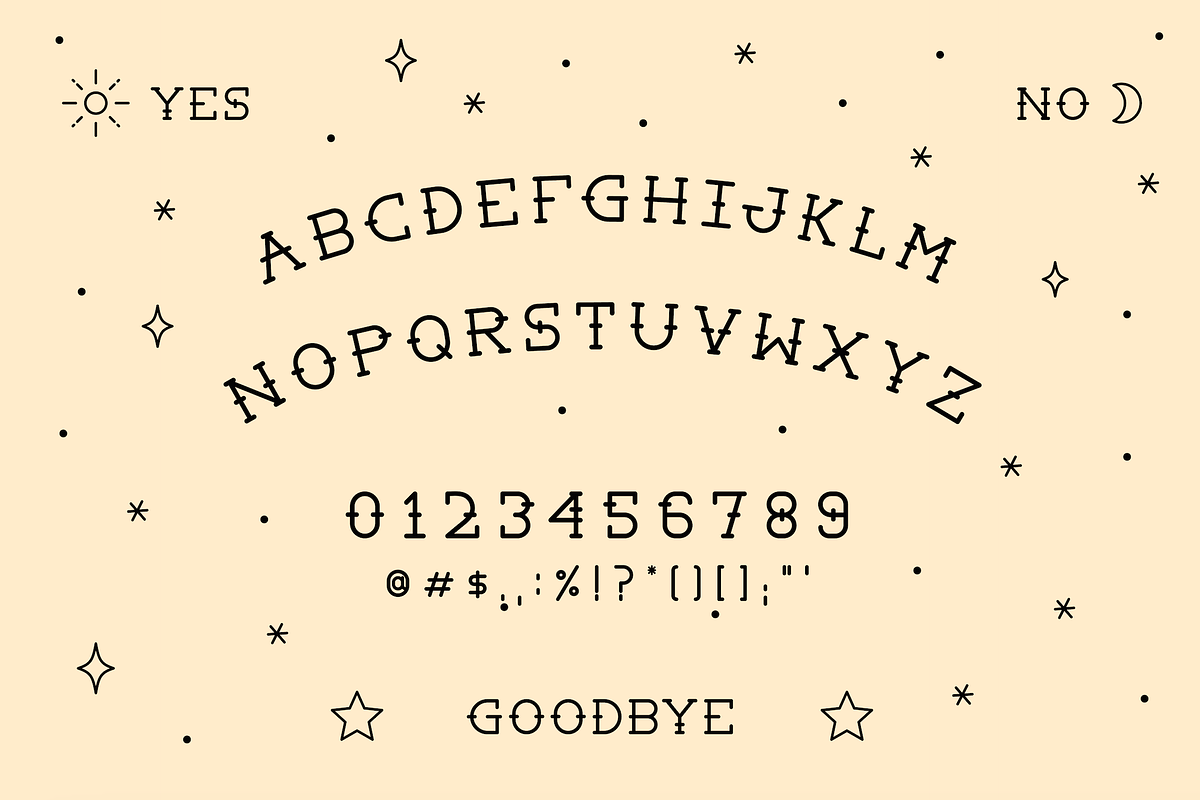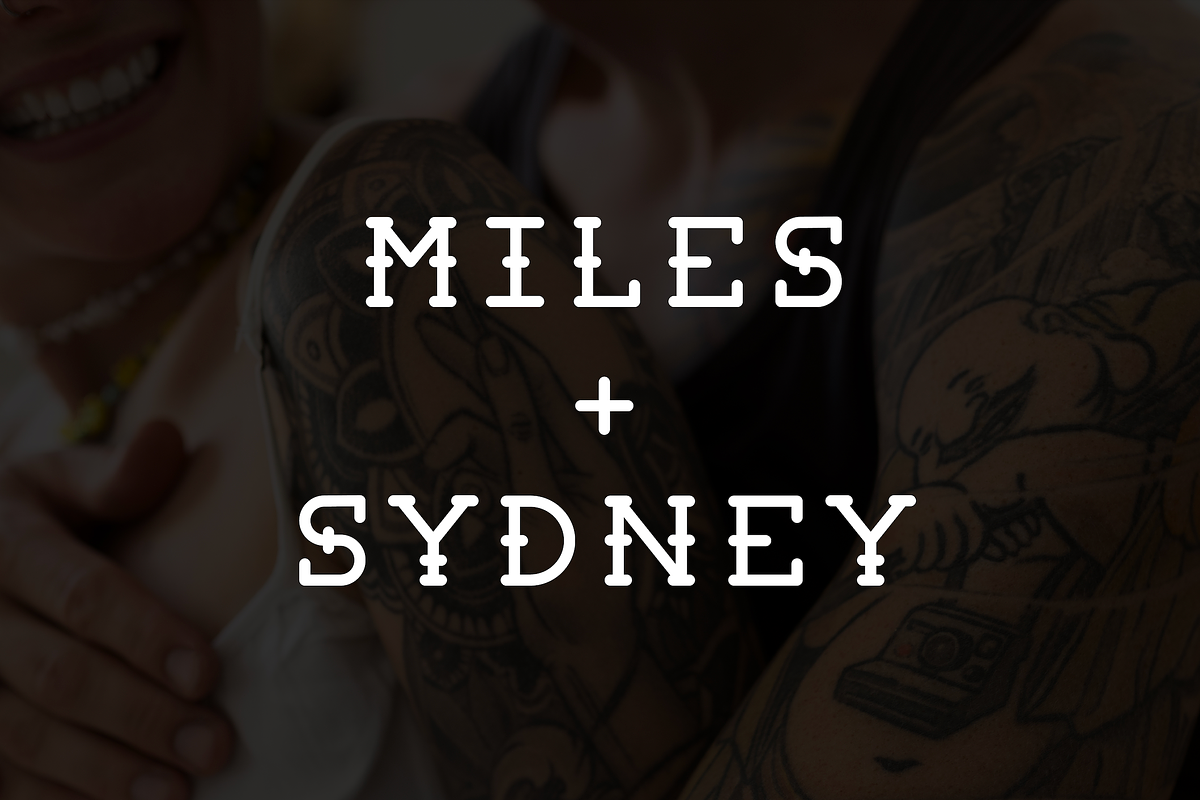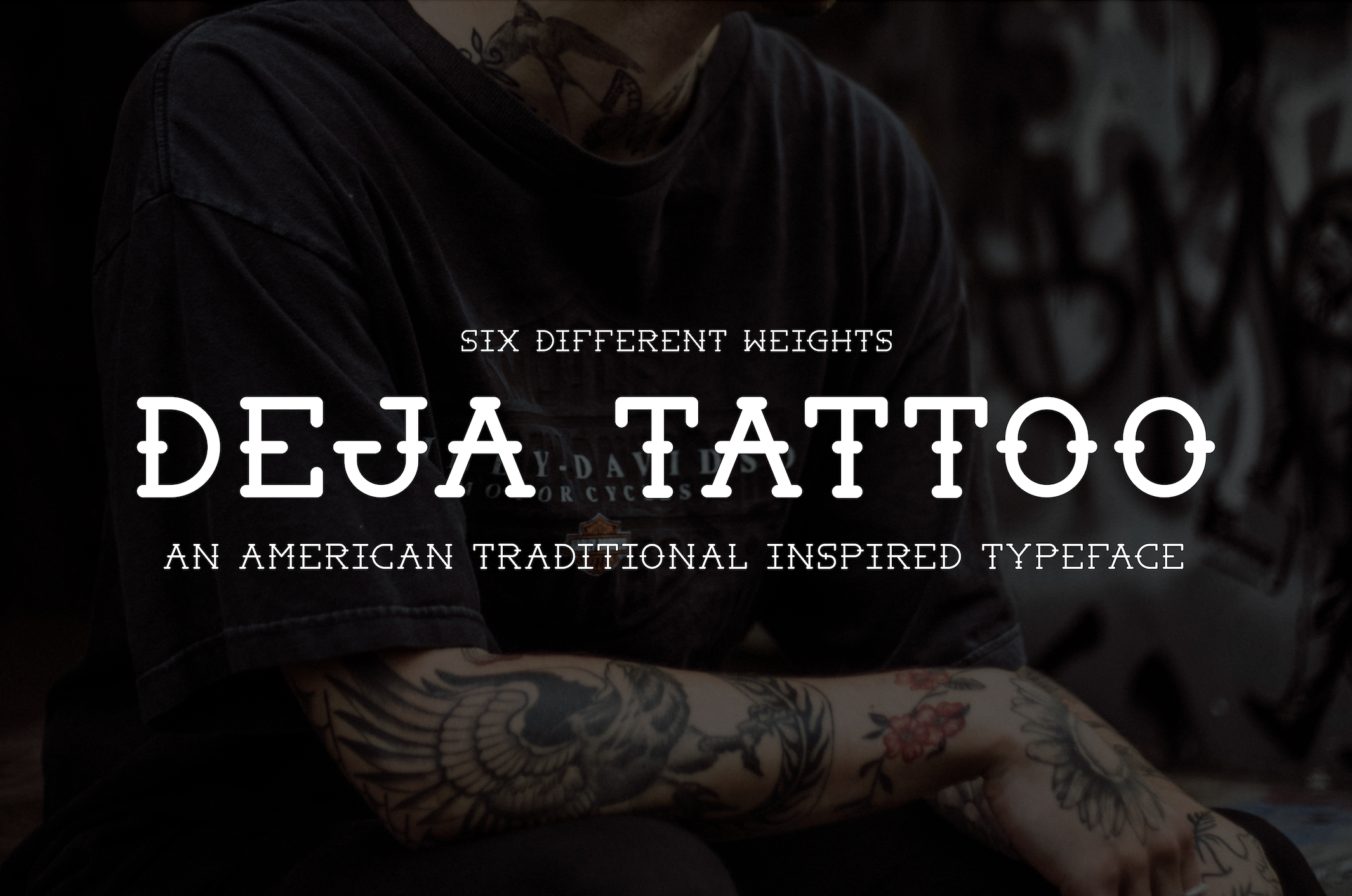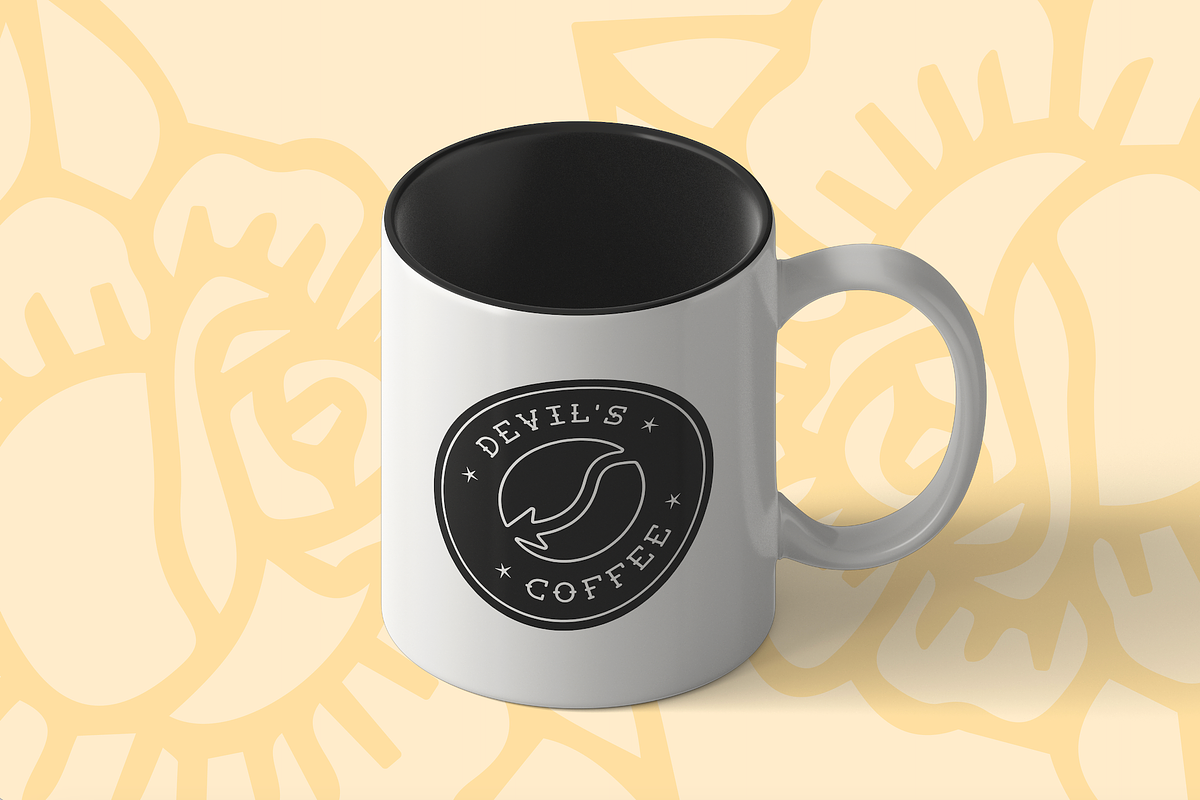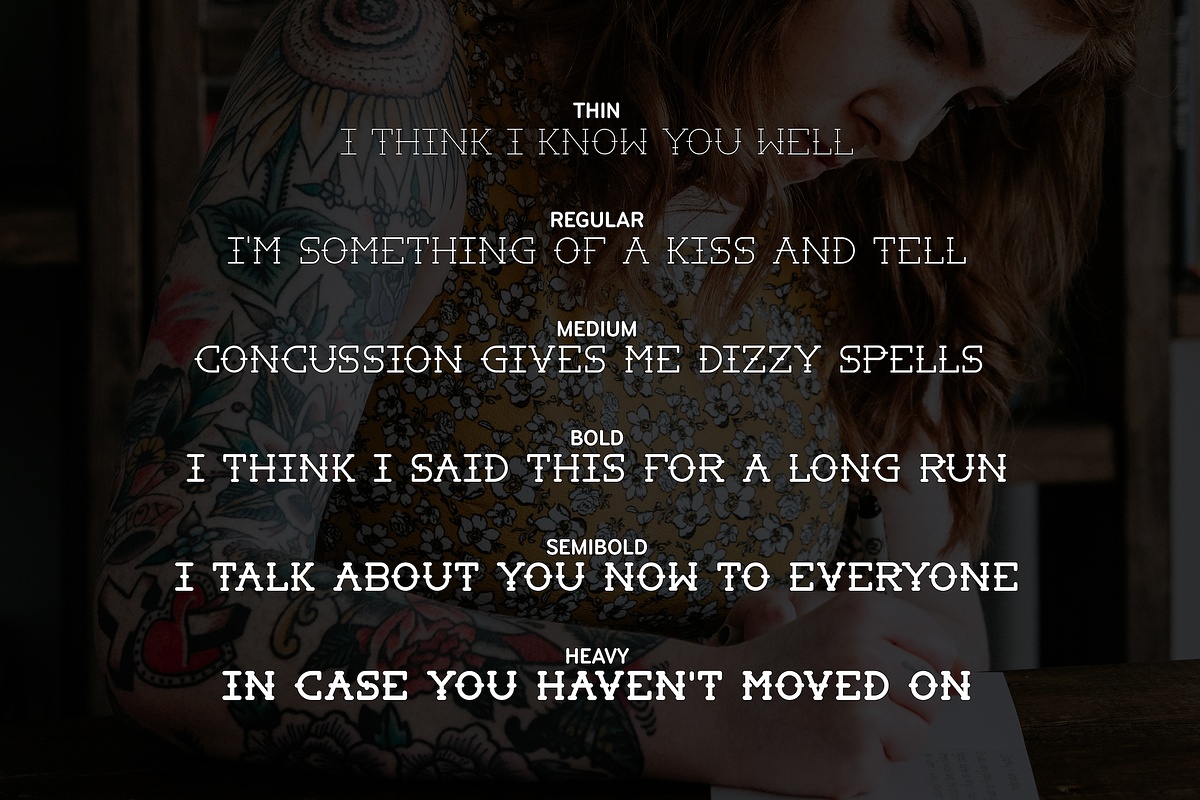
Deja Tattoo Typeface
Handmade American Traditional Tattoo Inspired Typeface
- Six different weights (Thin, Regular, Medium, Bold, Semibold, Heavy)
- Uppercase letters, numbers, and special characters